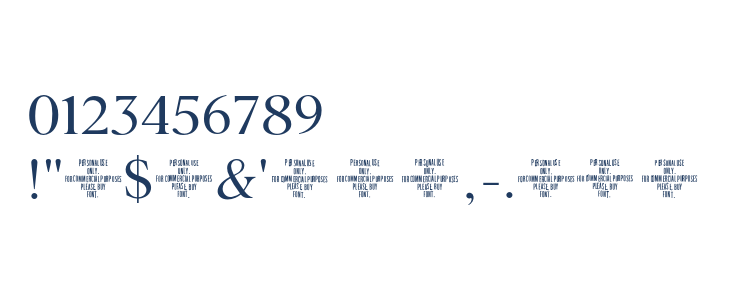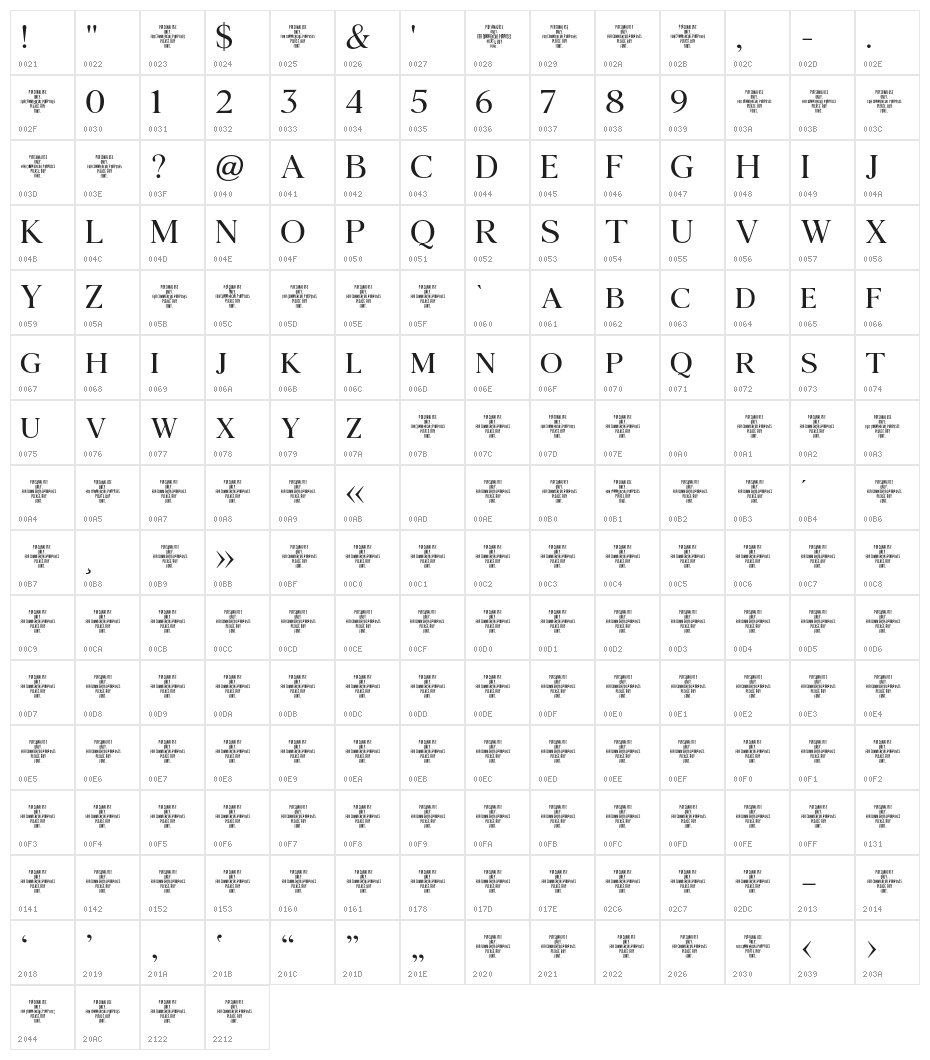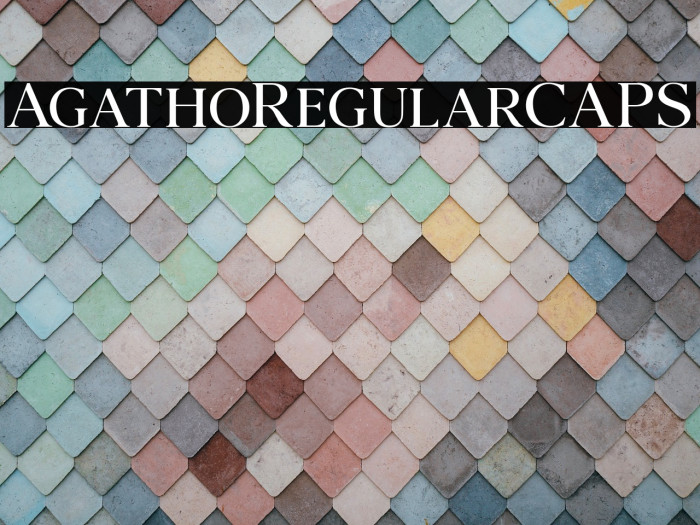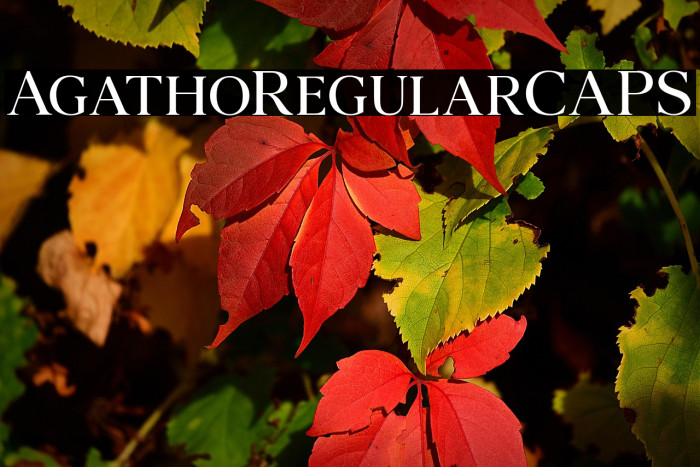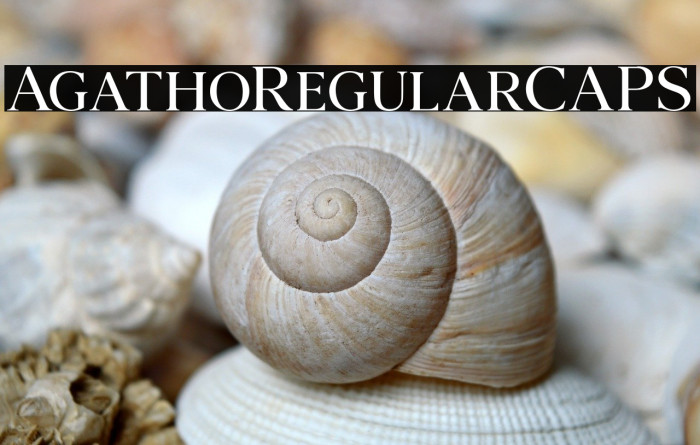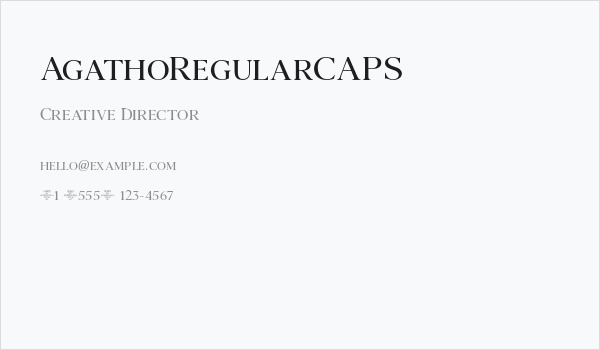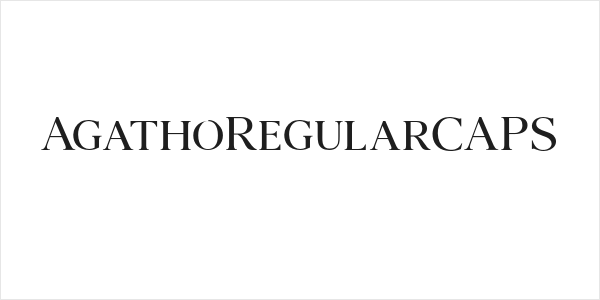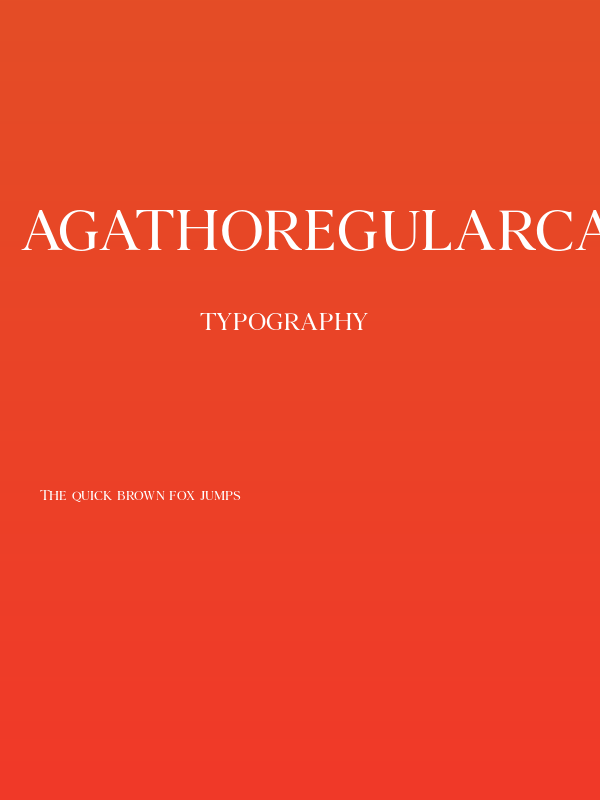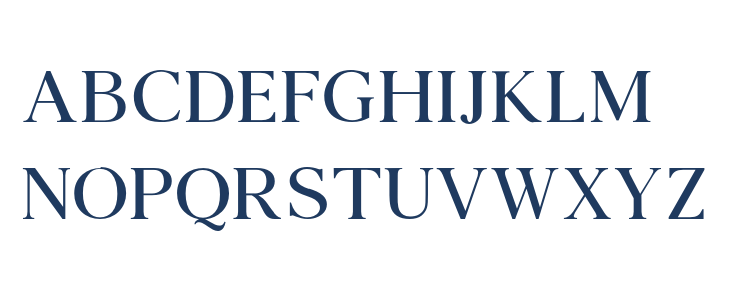
AgathoRegularCAPS Font
AgathoRegularCAPS Description
This font features a classic serif style with elegant and refined letterforms. The uppercase letters are prominently displayed with a traditional serif structure, offering a sense of formality and sophistication. The numerals are consistent with the overall design, providing a cohesive look. Special characters are included, maintaining the font's classic aesthetic. The font's design is suitable for projects that require a touch of elegance and timelessness.
| Proposed Projects | Ideal for formal invitations, book covers, editorial design, and branding projects that require a classic and sophisticated look. |